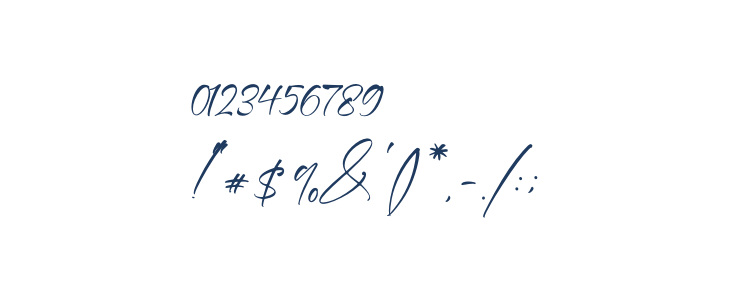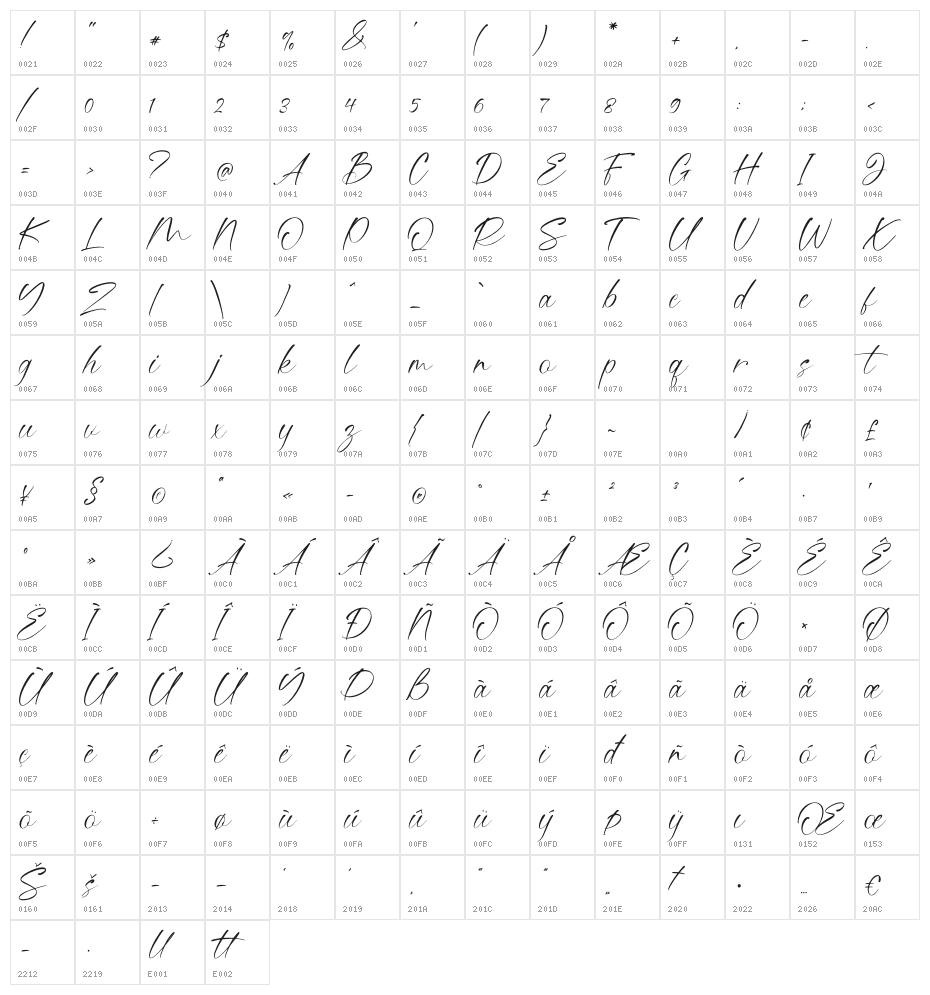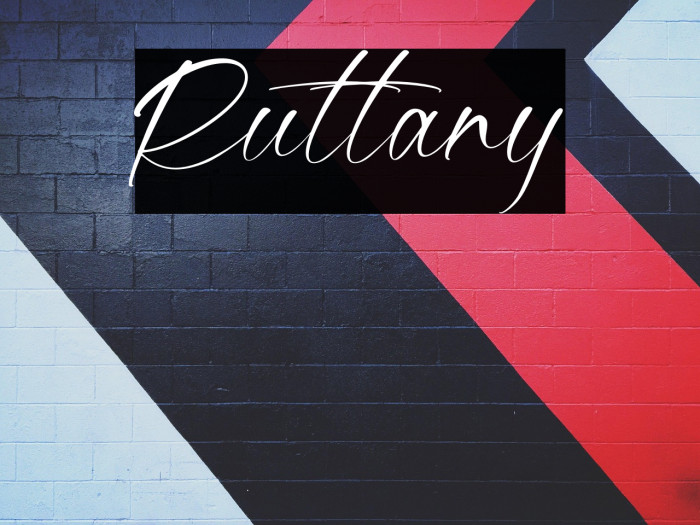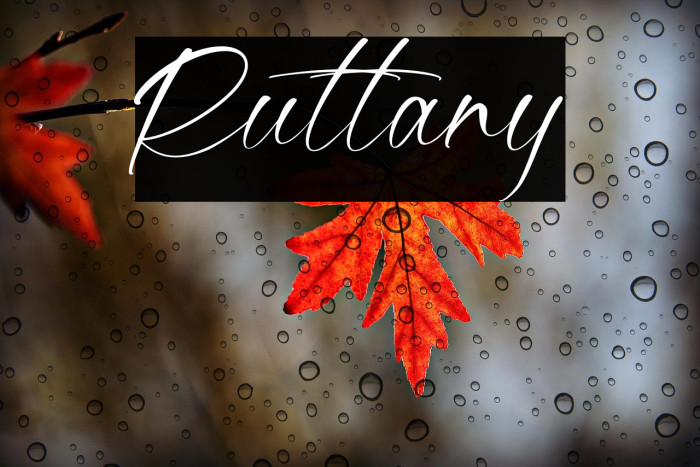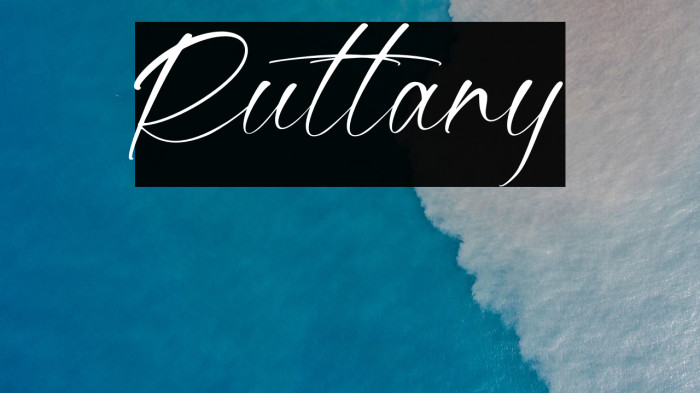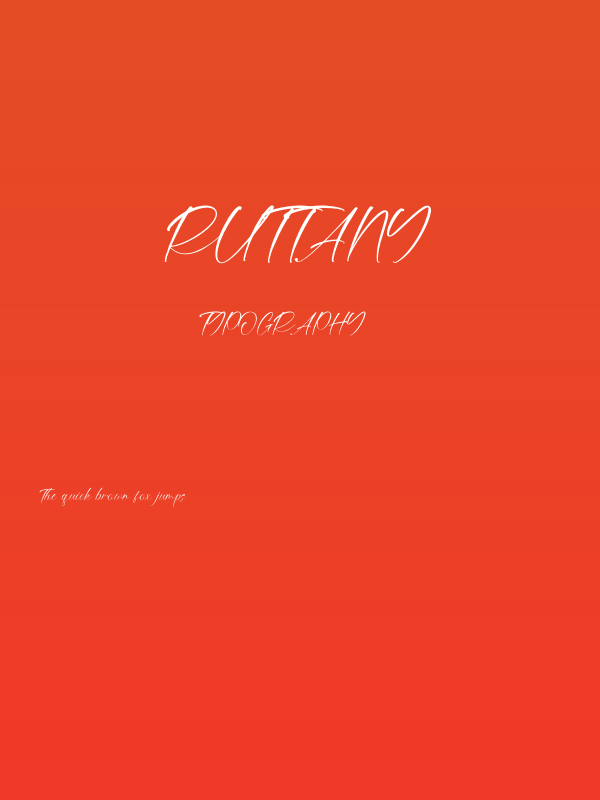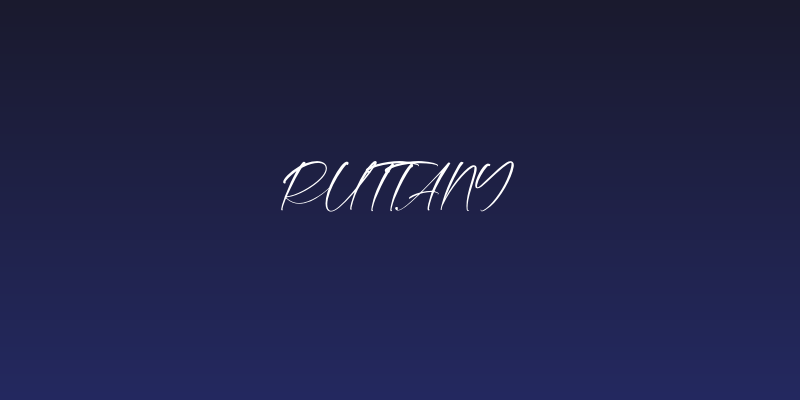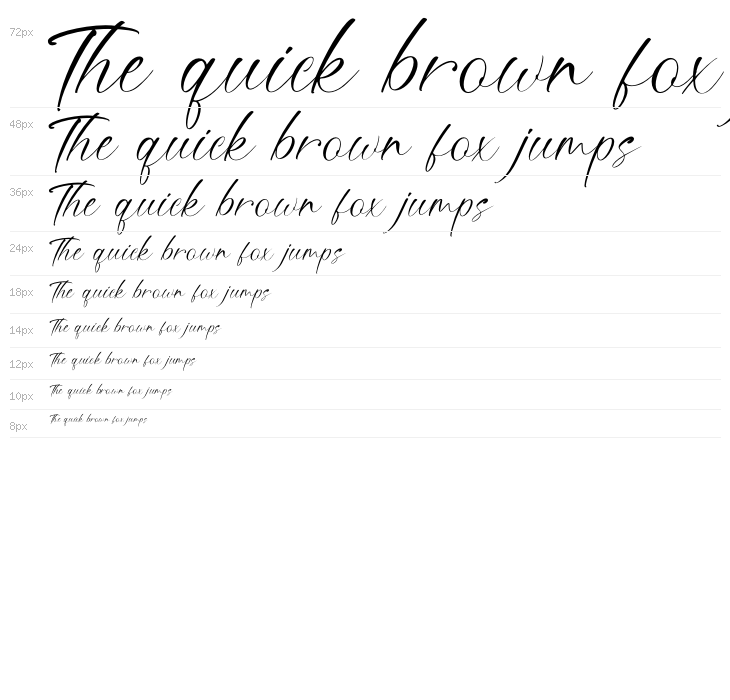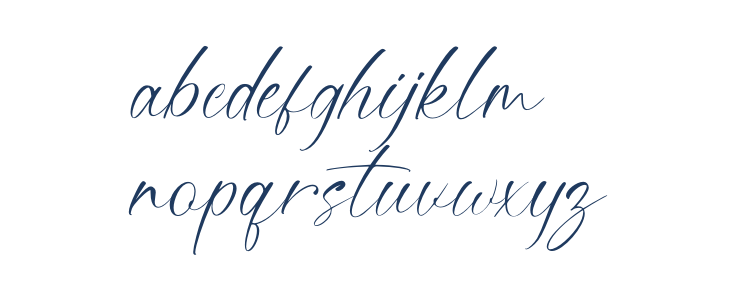
Ruttany Font
Ruttany Description
This elegant script font features fluid, connected strokes that mimic the natural flow of handwriting. The uppercase letters are bold and sweeping, with distinctive loops and flourishes that add a touch of sophistication. The lowercase letters maintain a consistent style, with smooth curves and a slight slant that enhances readability. The numerals are uniquely styled to match the overall aesthetic, while the special characters are thoughtfully designed to integrate seamlessly with the rest of the font. This font exudes a sense of grace and refinement, making it ideal for projects that require a personal touch.
| Overall Style | Elegant, Handwritten |
| Use Case | Logos, Invitations, Decorative text |
| Proposed Projects | Ideal for wedding invitations, greeting cards, branding, and elegant stationery. |